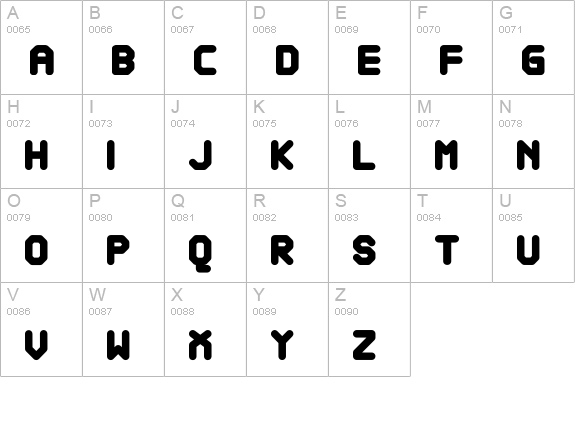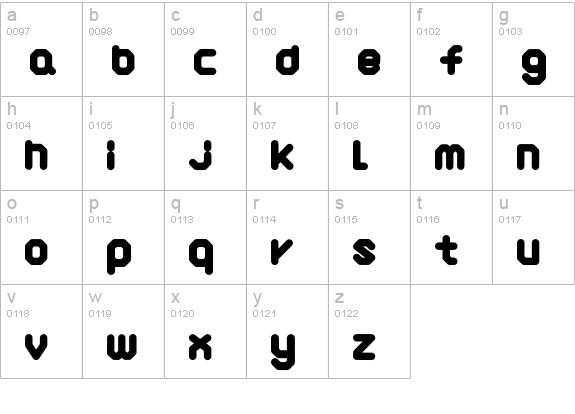
atarax-p Font Details
Atarax-P font is a stunning display typeface that exudes elegance and sophistication. Its sleek lines and modern design make it perfect for a wide range of creative projects, from branding to editorial design. The font features a unique blend of sharp angles and smooth curves, creating a harmonious balance that is visually appealing. What sets Atarax-P font apart is not just its striking appearance, but also the fact that it is completely free to download. Yes, you heard that right - this beautiful font can be yours at no cost! Simply head over to FontsMarket.com to get your hands on this gem and elevate your design projects to a whole new level. Don't miss out on the opportunity to add Atarax-P font to your collection today!